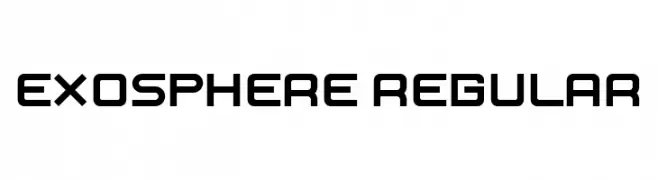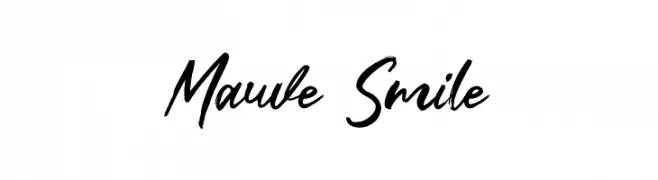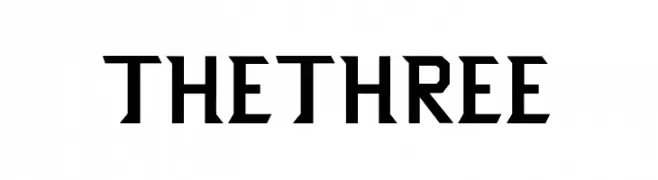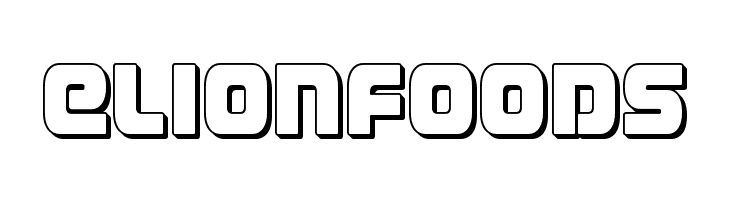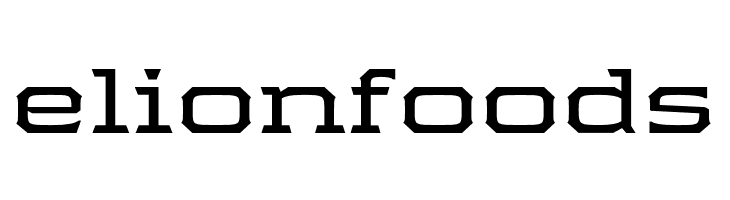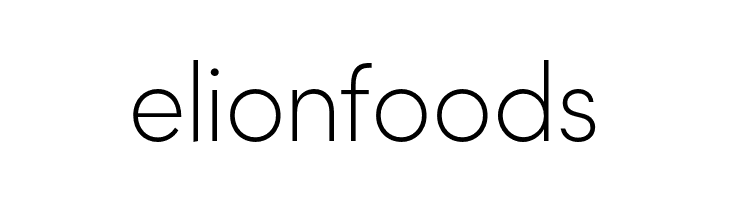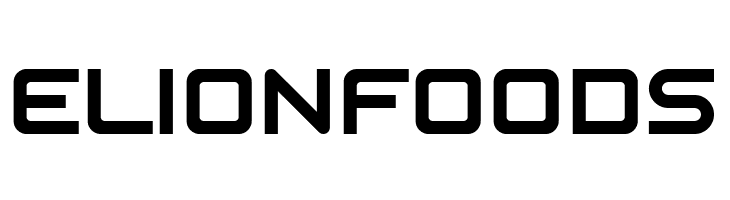
A bold, 3D outline font with a futuristic and playful style.
A bold, extended slab serif font with a strong geometric presence.
A bold, brushstroke-style font with an expressive, hand-painted look.
A modern, minimalist font with clean lines and high legibility.
A futuristic, geometric font with clean lines and angular shapes.
A classic serif font with elegant, elongated serifs and balanced proportions.
A bold, geometric font with high contrast and unique cutouts.
A bold, expressive handwritten font with dynamic strokes.
A decorative and ornamental typeface with intricate flourishes.
A bold, angular font with a futuristic and geometric design.